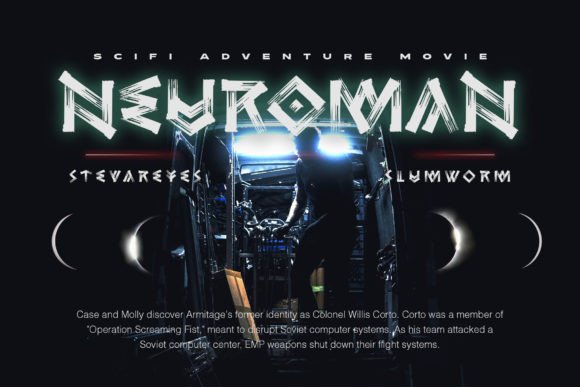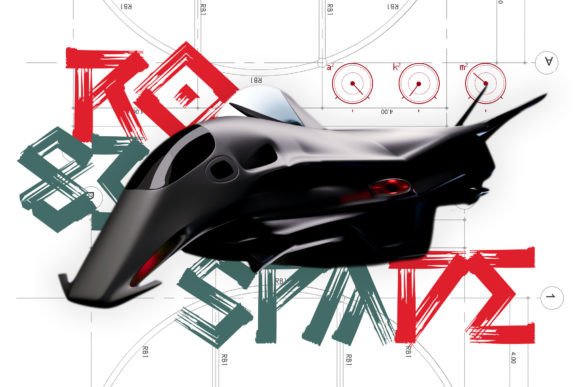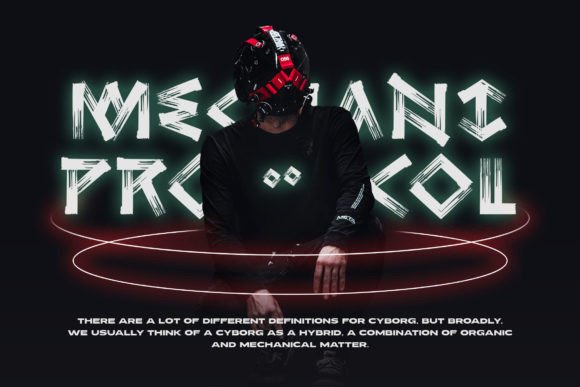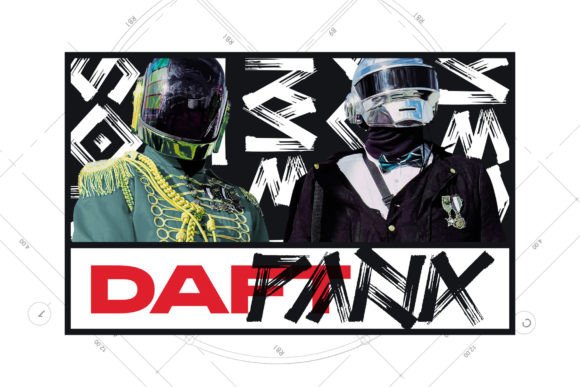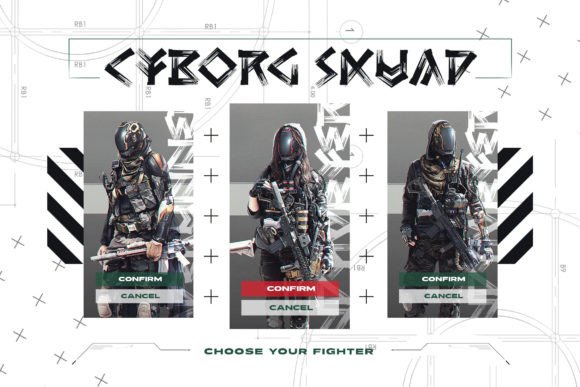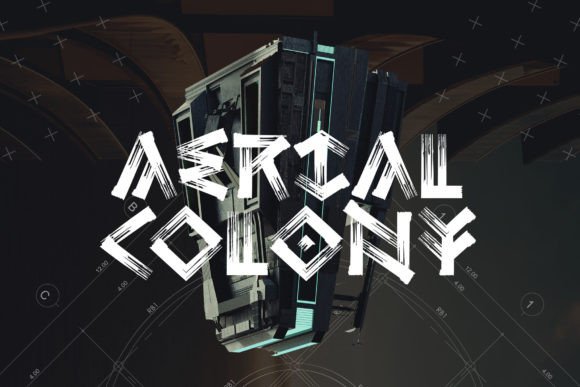
Aquenos Font: The Ultimate Techno Futuristic Font for Modern Designers
In the world of design, fonts play a crucial role in conveying the tone and aesthetic of a project. For designers and crafters looking for a font that embodies the essence of technology and futurism, Aquenos is the perfect choice. This techno futuristic font is designed to elevate your designs to the next level, making it ideal for a wide range of projects, from logo branding and editorial design to esports, gaming, and more.
What Makes Aquenos Font Stand Out?
Aquenos is not just another font; it’s a statement piece that screams modernity and innovation. Its sleek lines, geometric shapes, and futuristic vibe make it a versatile font that can be used in various design contexts. Here are some key features that make Aquenos a standout font:
• Unique and Memorable: Aquenos’s distinctive style ensures that your designs will stand out from the crowd, making them more memorable to your audience.
• Highly Versatile: Whether you’re working on a logo, website, poster, or any other design project, Aquenos adapts seamlessly, ensuring your message is conveyed with clarity and style.
• Techno Futuristic Aesthetic: Perfectly capturing the essence of technology and futurism, Aquenos brings a modern edge to your designs, making them instantly recognizable.
Ideal for a Wide Range of Projects
Aquenos’s versatility is one of its strongest assets. Here are some of the projects where Aquenos font can make a significant impact:
• Logo Branding: Create a lasting impression with a logo that stands out. Aquenos’s unique style ensures your brand identity is memorable and impactful.
• Editorial Design: Elevate your publications with a modern font that captures readers’ attention and keeps them engaged.
• Esports Design: In the competitive world of esports, standing out is crucial. Aquenos helps you create designs that resonate with the gaming community.
• 80s Retro Design: For a nostalgic feel with a modern twist, Aquenos can be used to create retro-style designs that appeal to both old and new generations.
• Game/Gaming Industry: Perfect for game titles, in-game text, and promotional materials, Aquenos brings a futuristic vibe that gamers love.
• Sports Racing and Supercar Brand: For designs that require speed and dynamism, Aquenos’s sleek and modern aesthetic is a perfect fit.
• Music Poster and Modern Advertising: Make your posters and ads pop with a font that’s both modern and eye-catching.
• Website Design: Enhance your website’s user experience with a font that’s clean, modern, and highly readable.
Why Choose Aquenos Font?
Choosing the right font for your project can be daunting, but here are a few reasons why Aquenos should be at the top of your list:
• Legibility: Despite its futuristic design, Aquenos remains highly legible, ensuring your message is communicated effectively.
• Customization: With a range of customization options, you can adapt Aquenos to fit your project’s specific needs.
Aquenos font is more than just a typeface; it’s a design statement that can elevate your projects to new heights. Its unique blend of techno and futuristic elements makes it the perfect choice for designers and crafters looking to make an impact. Whether you’re working on a logo, website, or any other design project, Aquenos provides the perfect combination of style, versatility, and functionality. Make your designs stand out with Aquenos, and take the first step towards creating something truly remarkable.